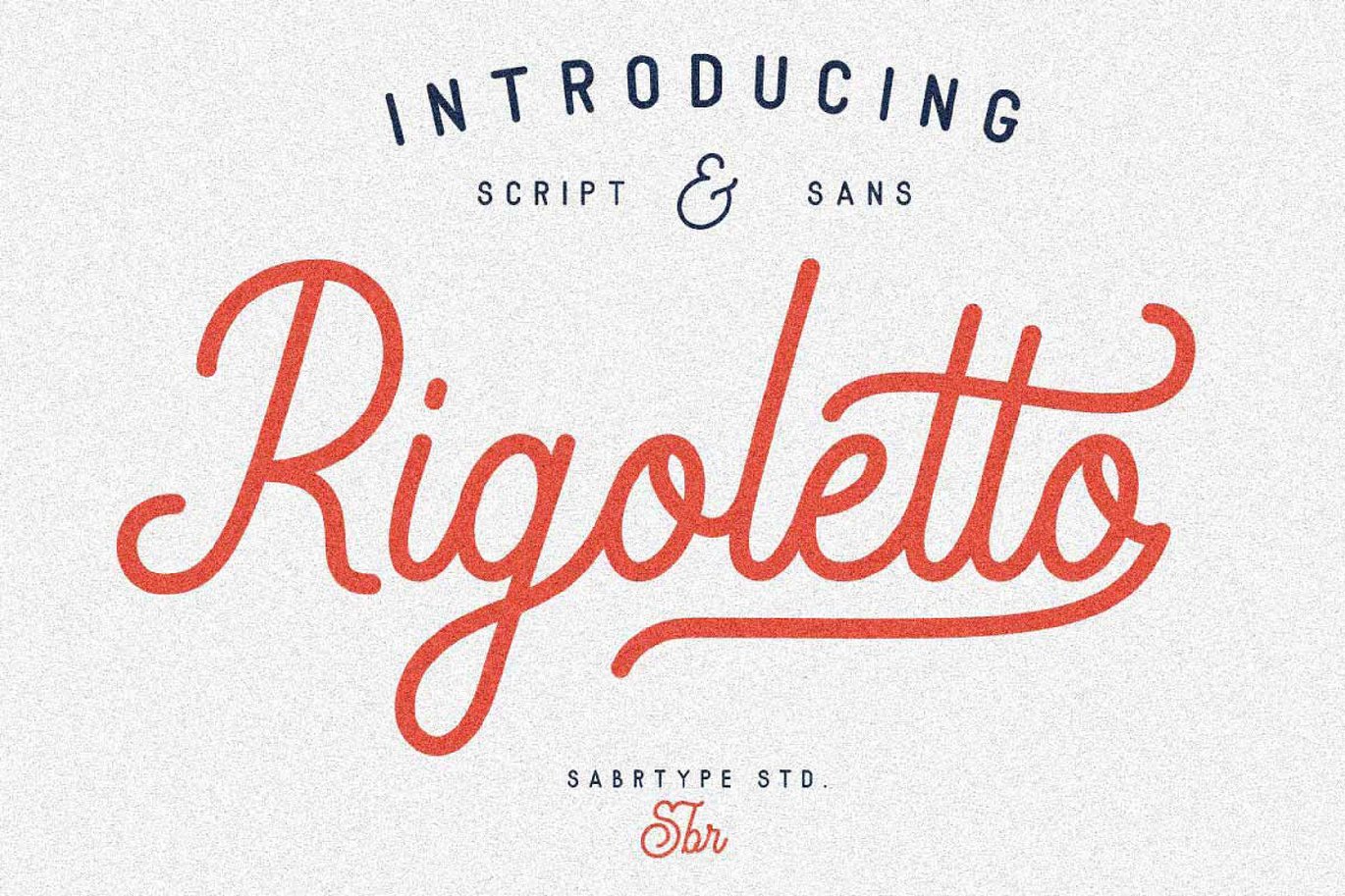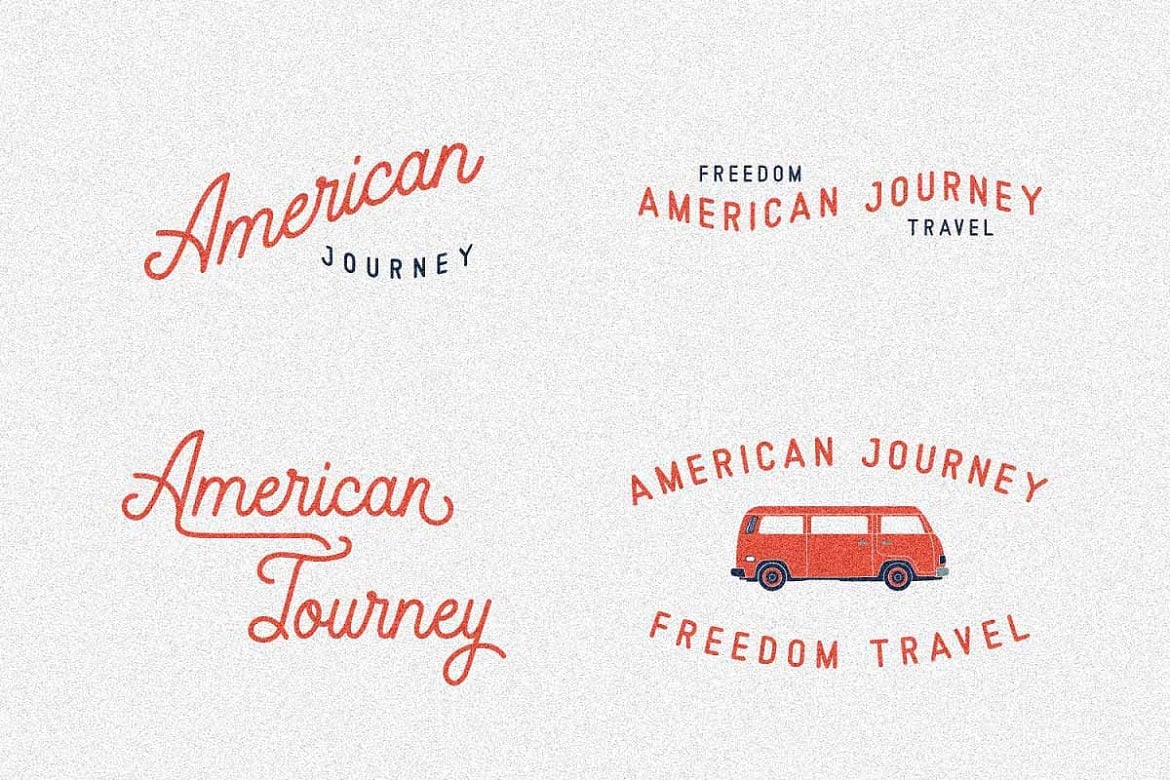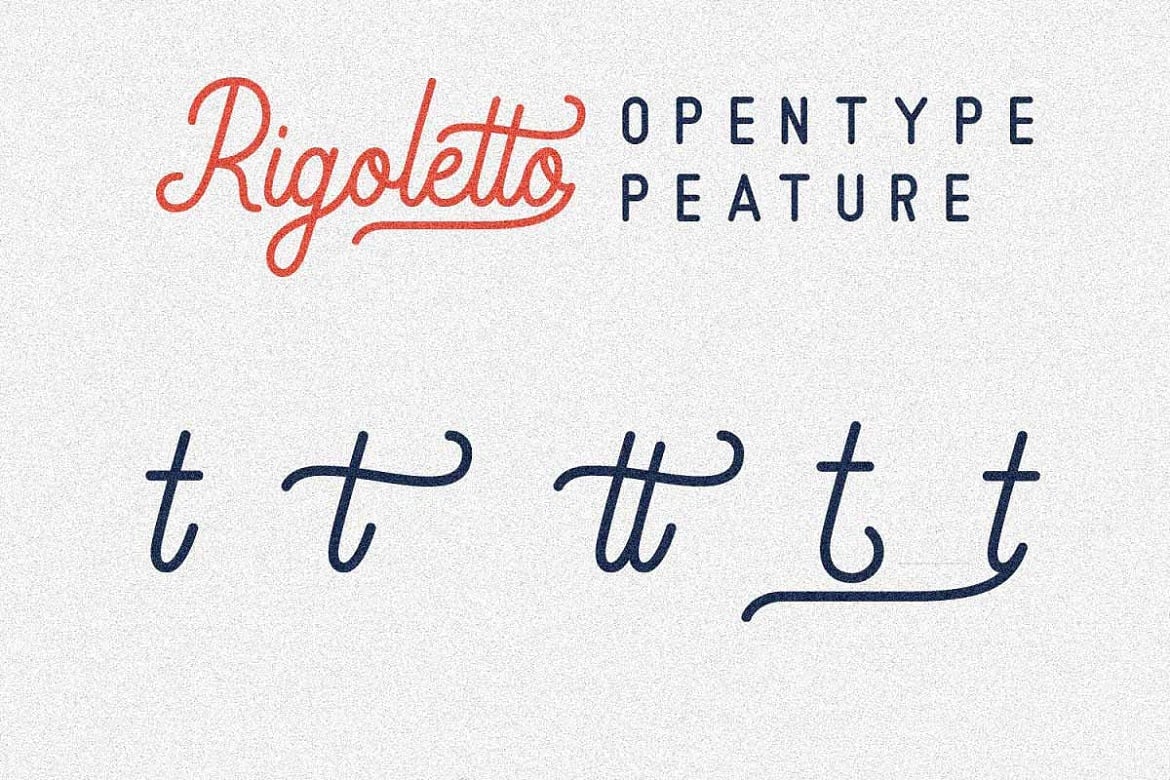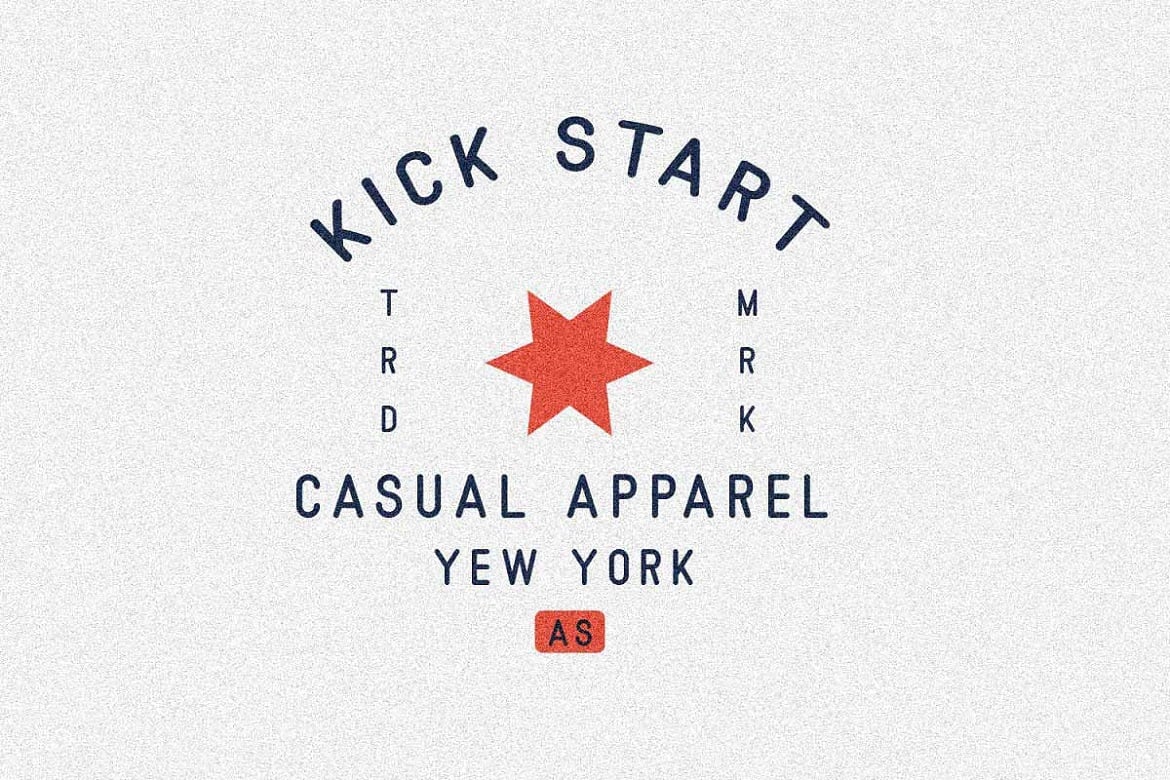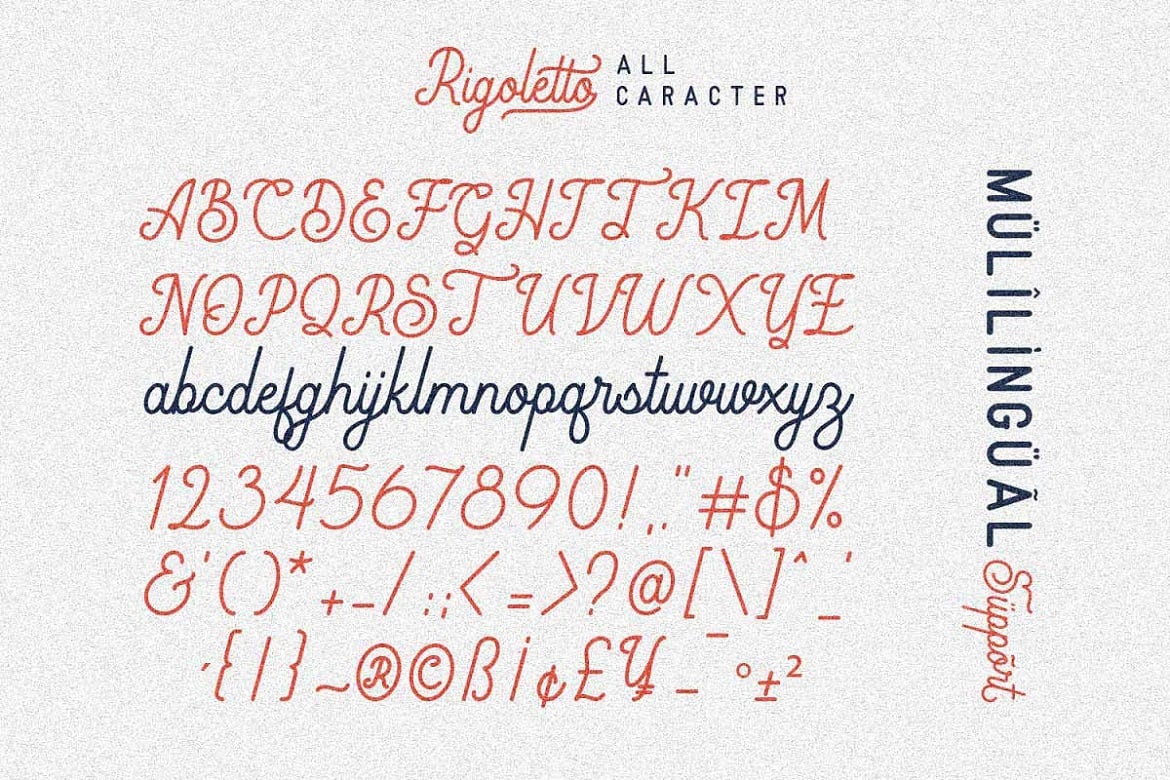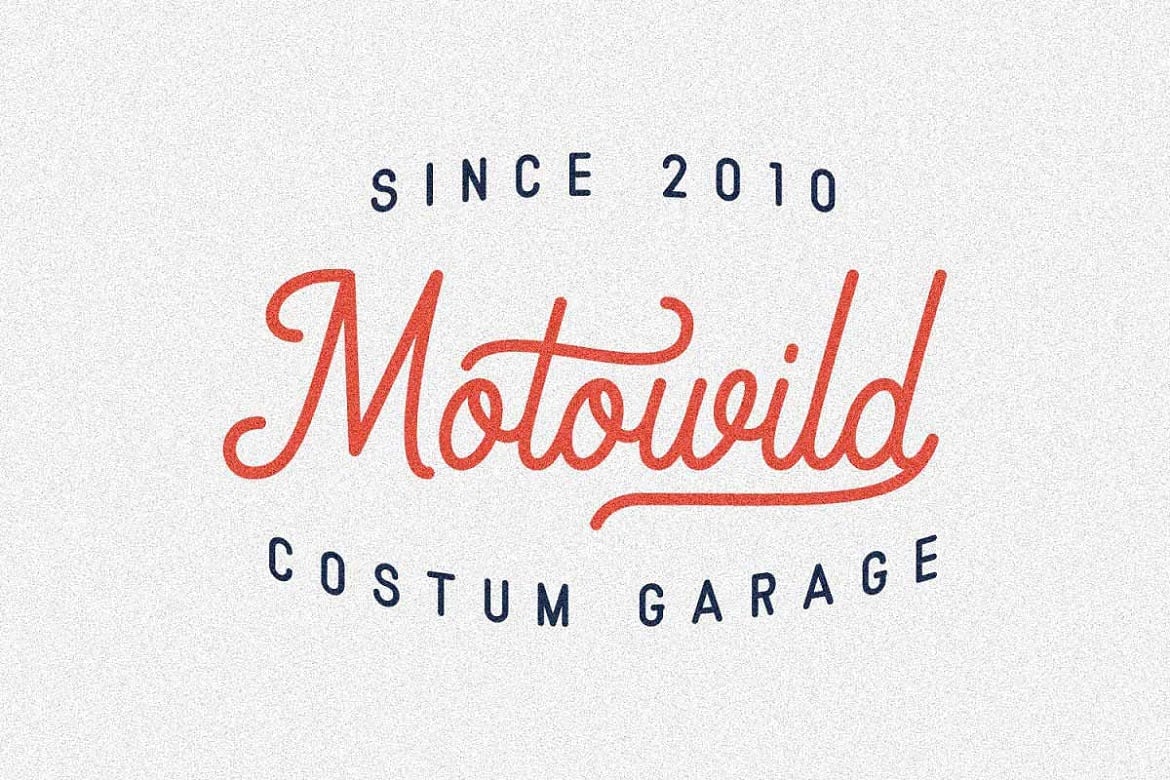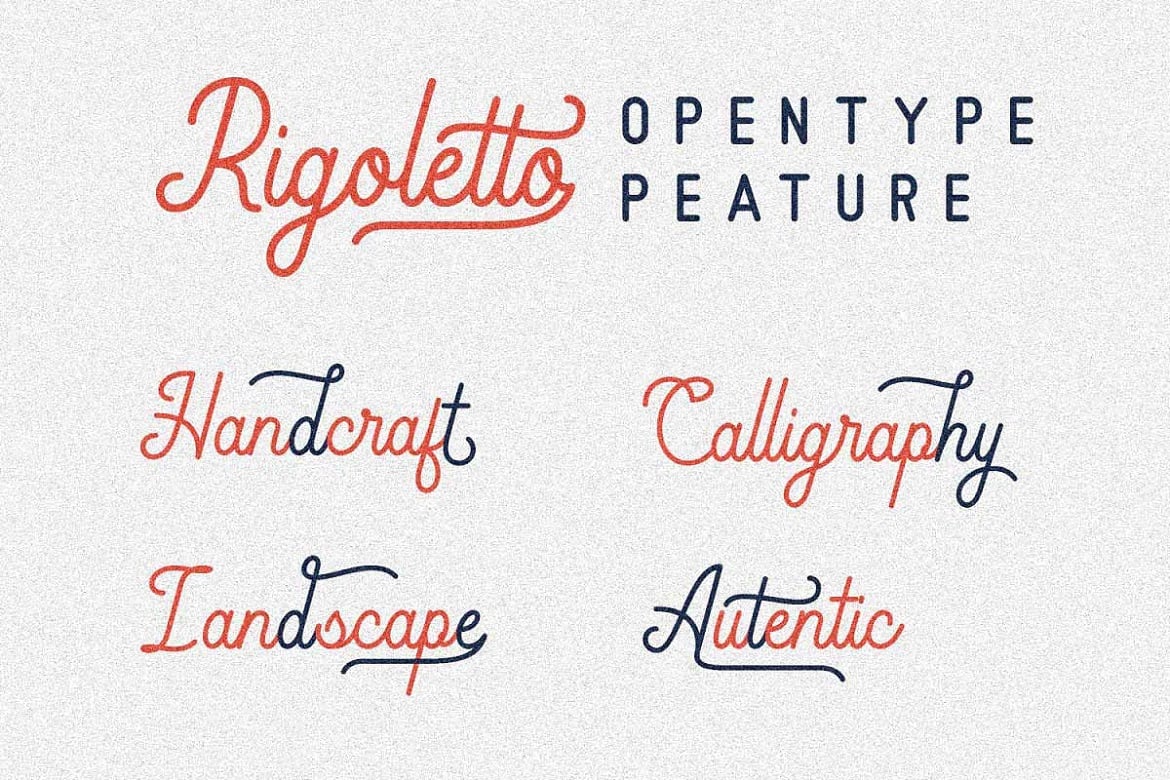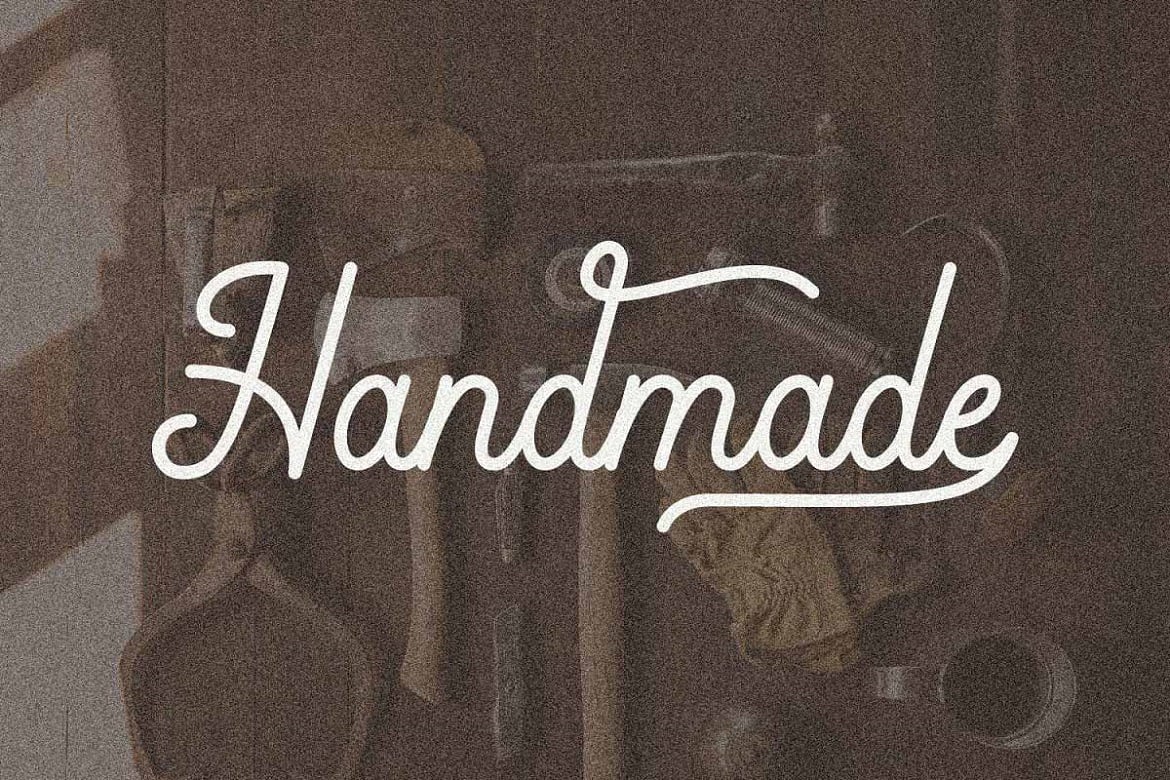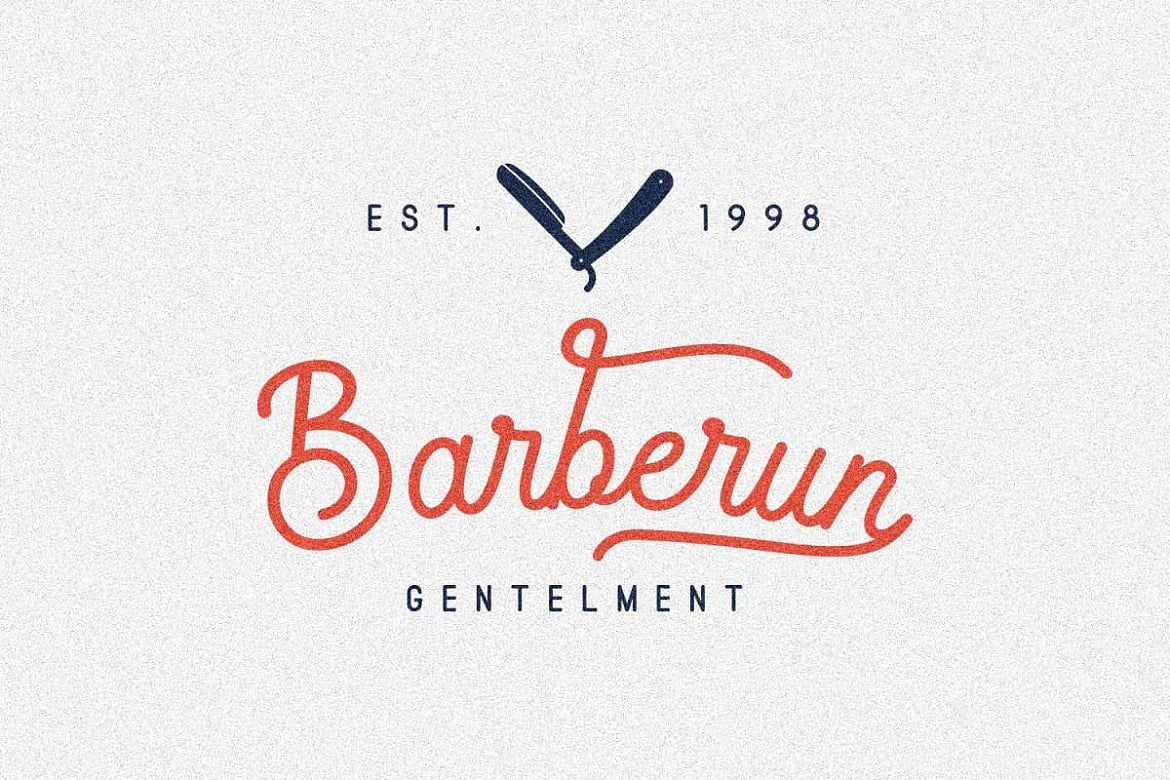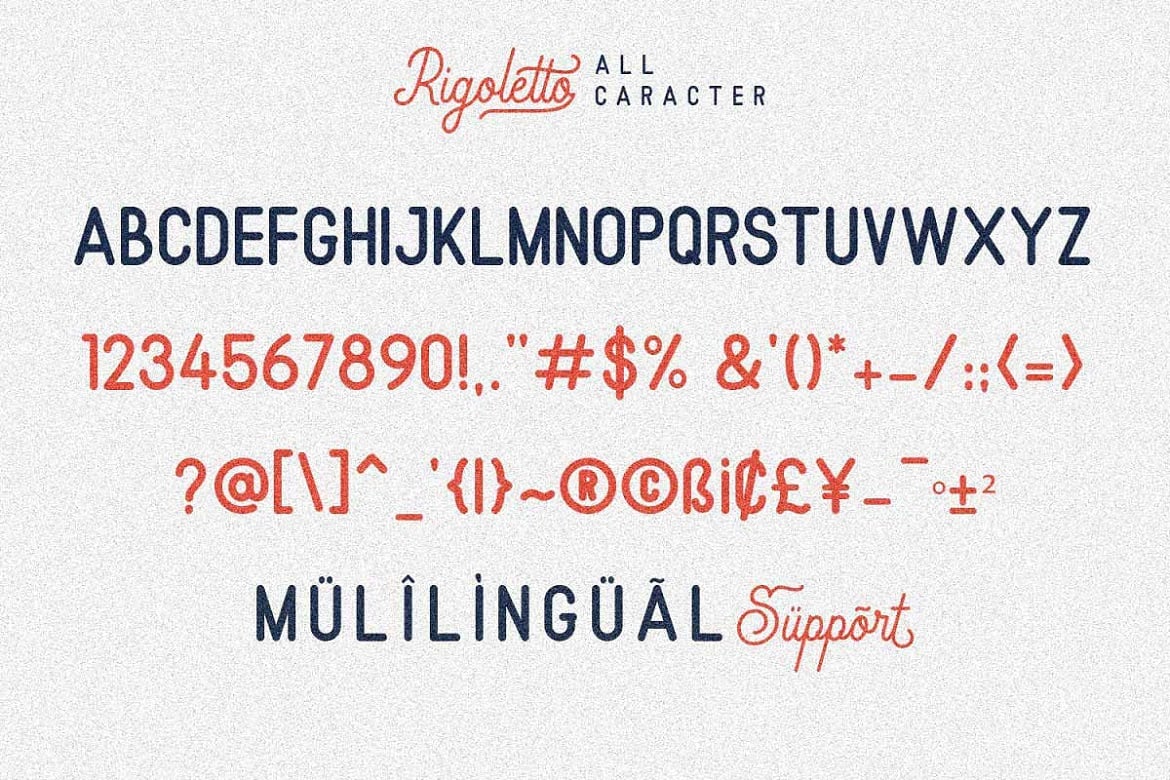
Rigoletto Font Duo
This font has a neat monoline style with Sans Serif fonts that support the style of the monoline script. Overall this font will produce clean, expensive and elegant design.
Rigoletto has 70 Alternates that supports decorating your design. It has Multilingual support and works with following languages: English, Danish, Dutch, Estonian, Faroese, Filipino, Finnish, French, German, Hungarian, Icelandic, Irish, Italian, Norwegian, Polish, Portuguese, Spanish, Swedish.
I show how this script can be used. It’s very well suited for logotypes, wedding invitations, Vintage labels, romantic cards and others.